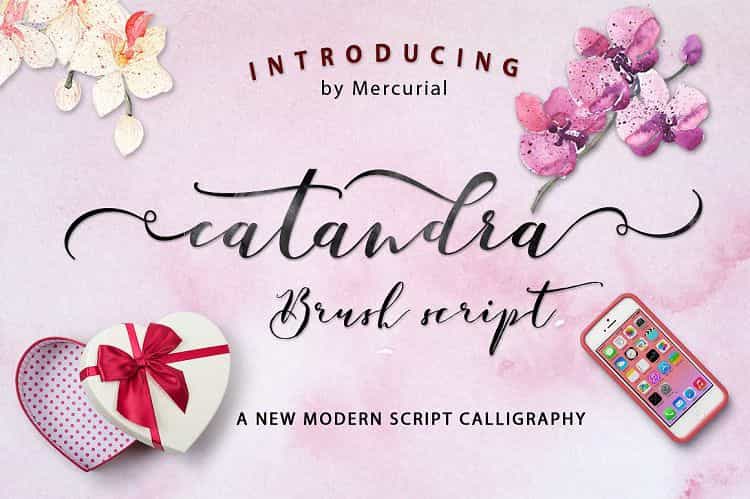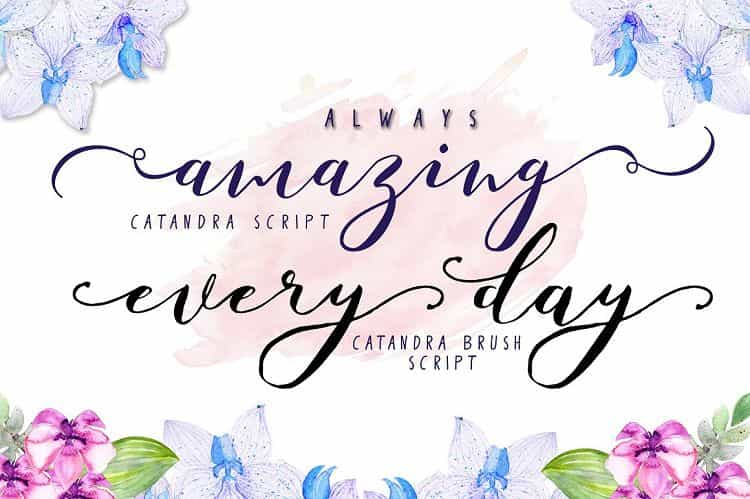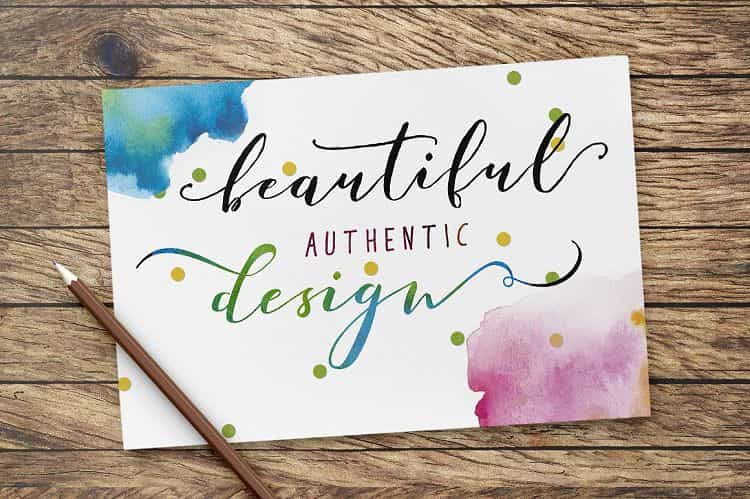
Discover Catandra Brush Script Font, part of the Brush Calligraphy collection—a versatile and unique font perfect for adding a personal touch to your projects. Download it for free and enjoy crafting designs with style, from invitations to social media posts. This font is available exclusively for personal use, giving you the freedom to create without limits. Unlock your creativity with Catandra Brush Script Font today!
Branding with the added touch of Catandra Brush Font script. Catandra designed by MERCURIAL. Chic font which very pleasing and stylish for invitation purpose like cards, branding materials, business cards, quotes, posters, more. The Script typeface obtained these would make it blend favorable from a – z.